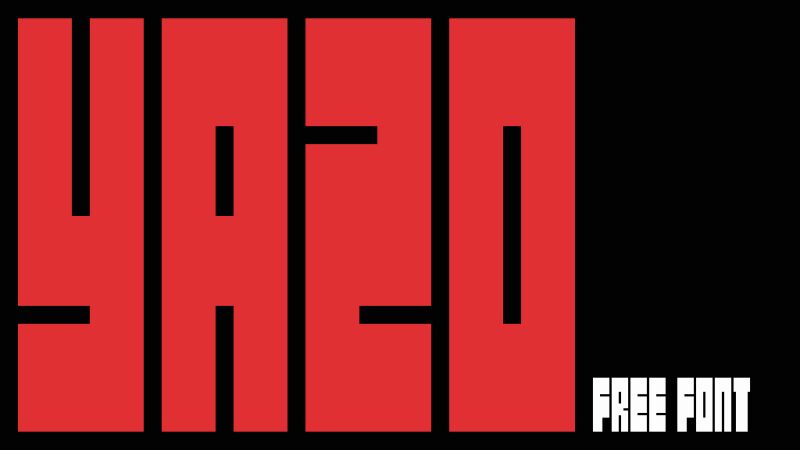
Yazo Font is a bold, geometric sans-serif display font built by GGBotNet with modern and minimalist features. It has a consistent line thickness and a structured blocky appearance that delivers an architectural feel. This free font designed in a techno style is also condensed in width which conveniently saves space for written content.
Use Yazo for heading and titles in posters, webpage designs, magazine covers, album covers, movie posters, or branding projects.